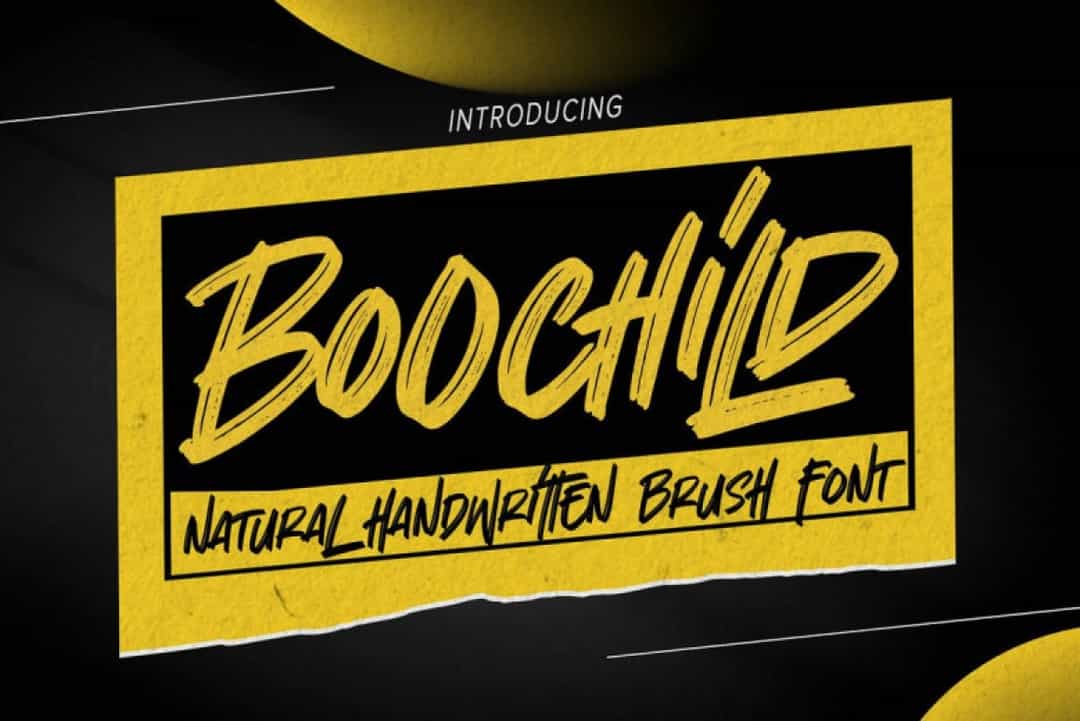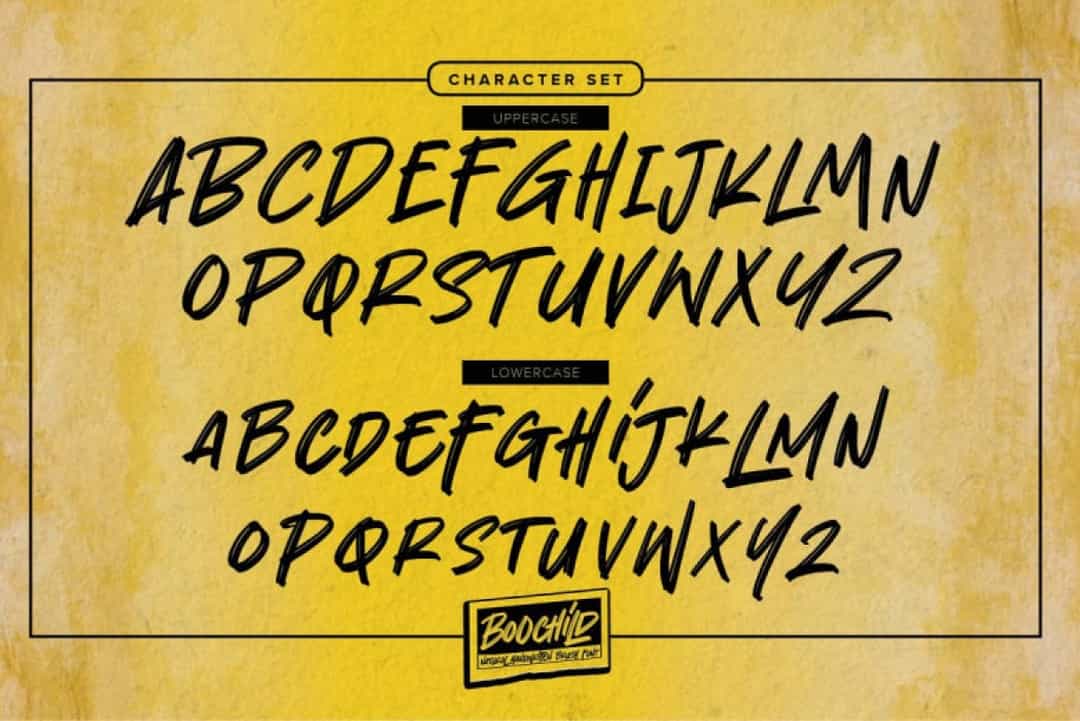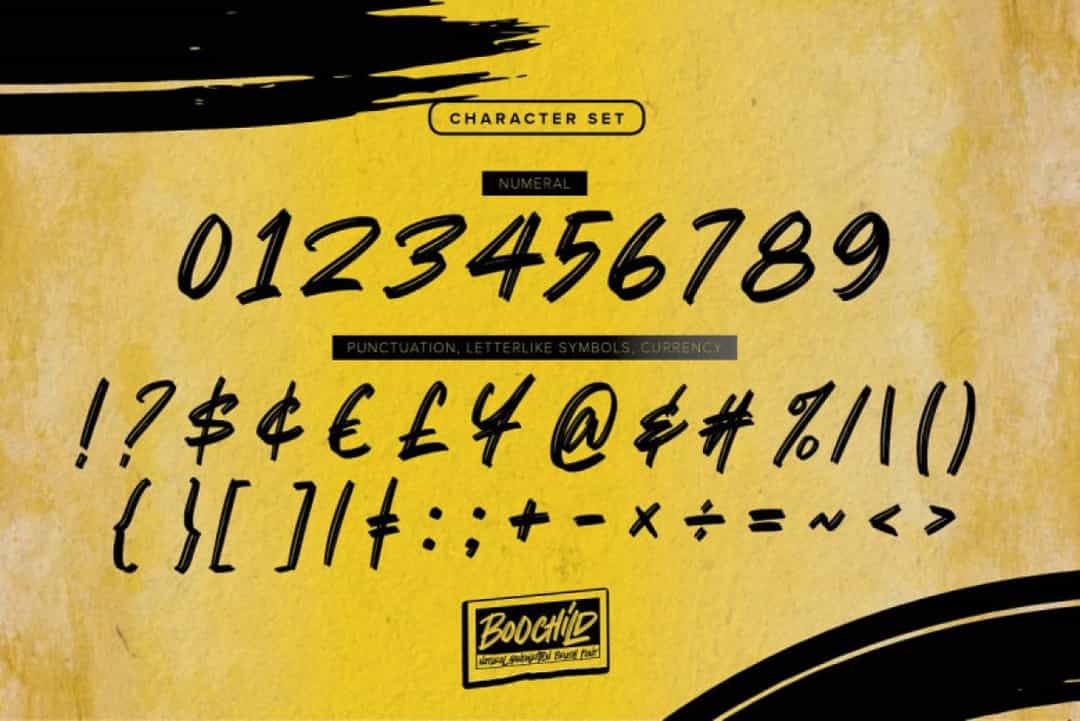
Discover Boochild Font, part of the Brush collection—a versatile and unique font perfect for adding a personal touch to your projects. Download it for free and enjoy crafting designs with style, from invitations to social media posts. This font is available exclusively for personal use, giving you the freedom to create without limits. Unlock your creativity with Boochild Font today!
Boochild Natural Handwritten Brush Font offers an effortless flow with its relaxed style and dynamic motion, hand-crafted by passionate hands to bring out its best qualities. Perfect for use on logos printed quotes invitations packaging for products cards headers Posters Labels etc.